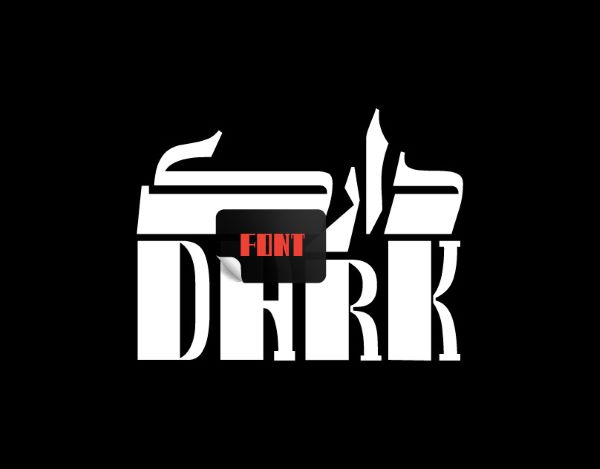
DARK Font
DARK by Ahmed Zyada is a contemporary variable font built around a genuinely ambitious premise: unifying Arabic, English, and Persian scripts within a single cohesive visual system. Rather than treating multilingual support as a technical checkbox, the design blends modern geometry with expressive detail to ensure that all three scripts share a coherent aesthetic identity. Free for personal use.